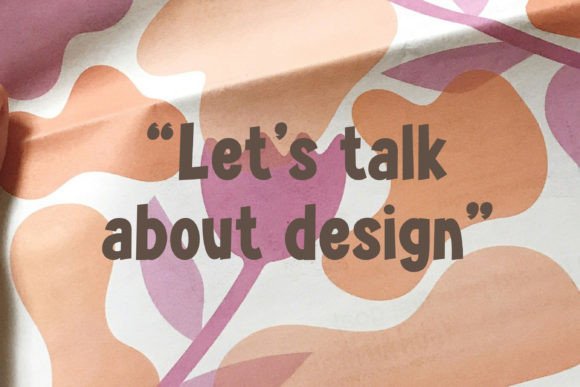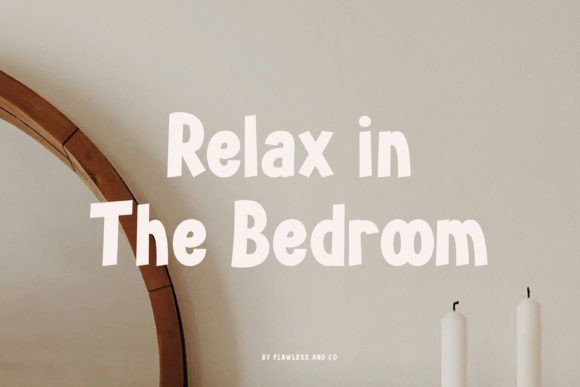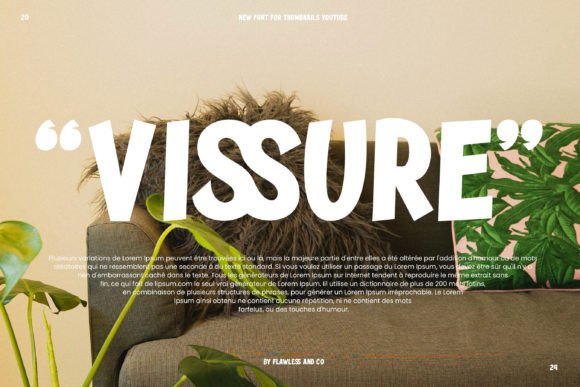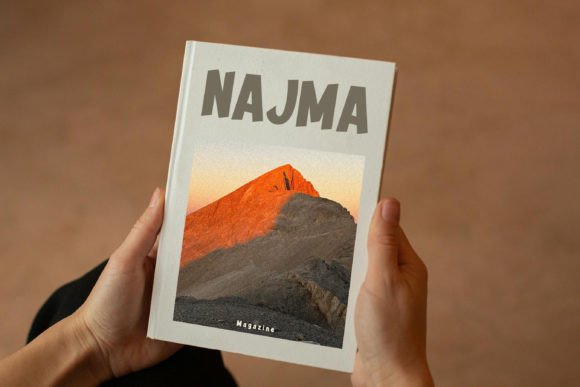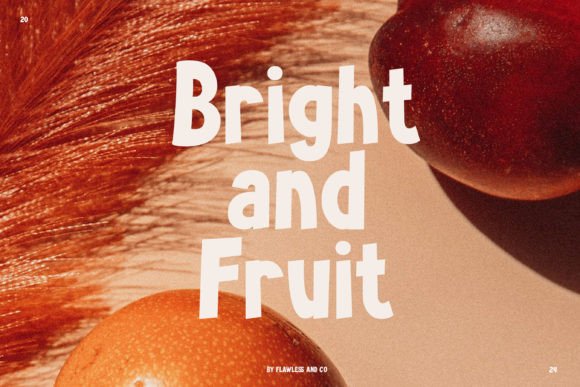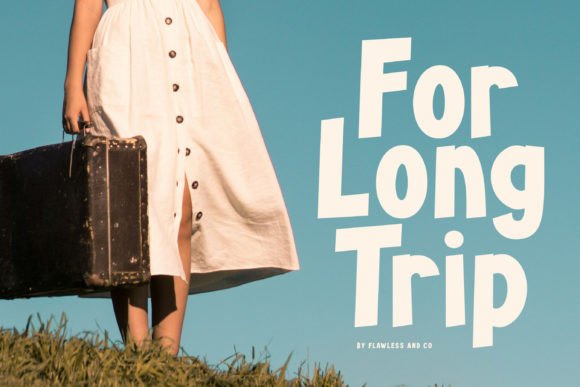
The Perfect Font to Elevate Your YouTube Game
Remember the moment you spent hours perfecting your YouTube thumbnail, only to feel like it just blended in with the crowd? You’re not alone. Creating eye-catching graphics can be a challenge, but what if you had the right tools to stand out? Enter the Brela Font, a game-changing sans-serif font designed to take your YouTube thumbnails to the next level.
Brela Font is more than just a font – it’s a key to unlocking a professional and modern aesthetic that will elevate your brand and captivate your audience. With its clean lines and geometric structure, Brela Font is the perfect addition to any graphic design project, from YouTube thumbnails to branding materials and business cards. Whether you’re a seasoned designer or just starting out, Brela Font is a valuable asset that will help you create graphics that truly pop.
Brela Font Key Features
- Unique Characteristics: Brela Font features a unique, hand-drawn design with intricate details and a touch of elegance, making it perfect for luxury and high-end branding.
- Style Variations: Brela Font comes in multiple styles, including Regular, Italic, Bold, and Bold Italic, giving you the flexibility to choose the perfect style for your design needs.
- Scalability: The font is highly scalable, making it suitable for use in various sizes and resolutions, from small text to large headlines.
Brela Font Review
Overall, I was excited to try out the Brela Font, and while it has its charms, I found it to be a bit of a mixed bag.
- The Brela Font has a unique, handwritten feel that’s perfect for adding some personality to digital designs.
- The font’s bold and italic styles are particularly well-done, and the subtle variations in letterform add to its handmade charm.
- The font is highly legible, even at smaller sizes, making it a great choice for body text or headlines.
- The Brela Font is not ideal for formal or professional designs, as its handwritten feel can come across as casual or sloppy.
- The font’s lack of consistency in letter spacing and kerning can make it look a bit amateurish at times.
- The font’s character set is not as extensive as some other fonts, which may limit its usability for certain types of projects.
While the Brela Font has its strengths, I think it’s best suited for personal or creative projects where a more relaxed, handwritten feel is desired. For more formal or professional designs, I’d recommend exploring other options.
Tips: Use Brela Font for headings and titles to add a touch of elegance to your designs.
Tips: Use Brela Font for creative projects, such as typography-based art or illustrations.
Tips: Use Brela Font for presentations, reports, or documents that require a professional and elegant touch.
Brela Font is suitable for a variety of applications, including:
1. Creative projects, such as typography-based art or illustrations.
2. Professional documents, such as presentations, reports, or resumes.
3. Branding and marketing materials, such as logos, business cards, or brochures.